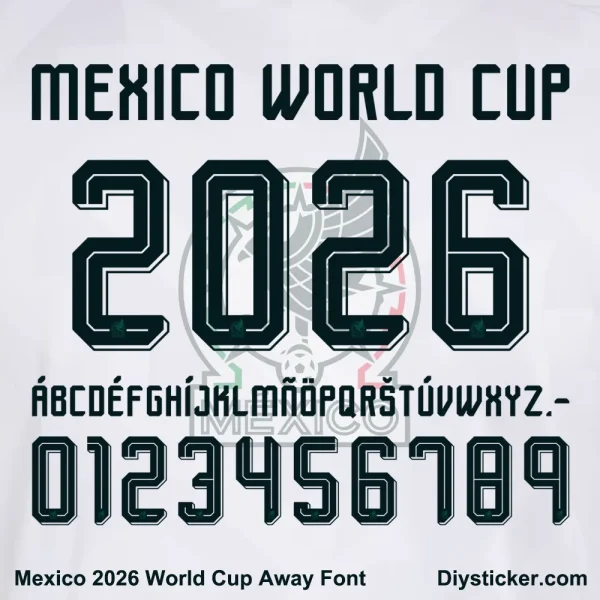
Mexico 2026 World Cup Away Font – Complete Vector Set
Celebrate the excitement of the 2026 FIFA World Cup with the official-style Mexico 2026 World Cup Away Font. This digital typeface is inspired by the away kit typography used for Mexico’s campaign in the world’s biggest football tournament, co-hosted by the USA, Canada, and Mexico.
Whether you’re designing custom jerseys, fan banners, social media graphics, or stadium signage, this font delivers a bold, athletic look that captures the spirit of Mexican football.
Key Features
Uppercase A–Z, numbers 0–9, and basic punctuation
Clean, modern, and sporty letterforms